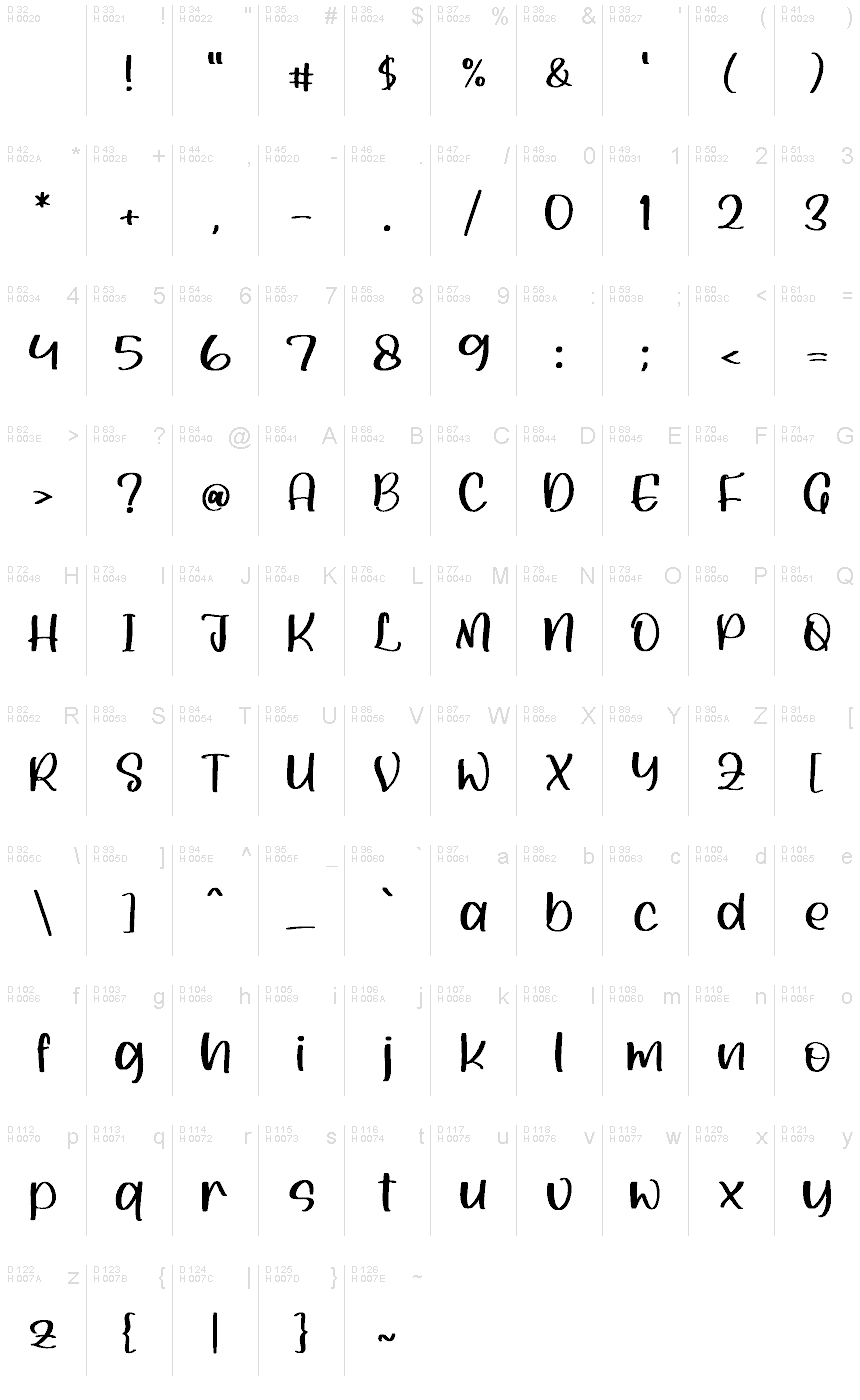
Skymate
Skymate font is a handwritten font made by Perspectype Studio – Letterena.com. Its casual, flowing, and organic look is perfect for art and design projects that require authenticity! You will enjoy the incompleteness of the lines and the overall artistic flair of this typeface.
Use this free handwritten font in applications like invitation cards, wedding design, planners, greeting cards, posters, magazines, logos, body text in books or blogs. The variety of possible uses will make you enjoy every second spent using Skymate!